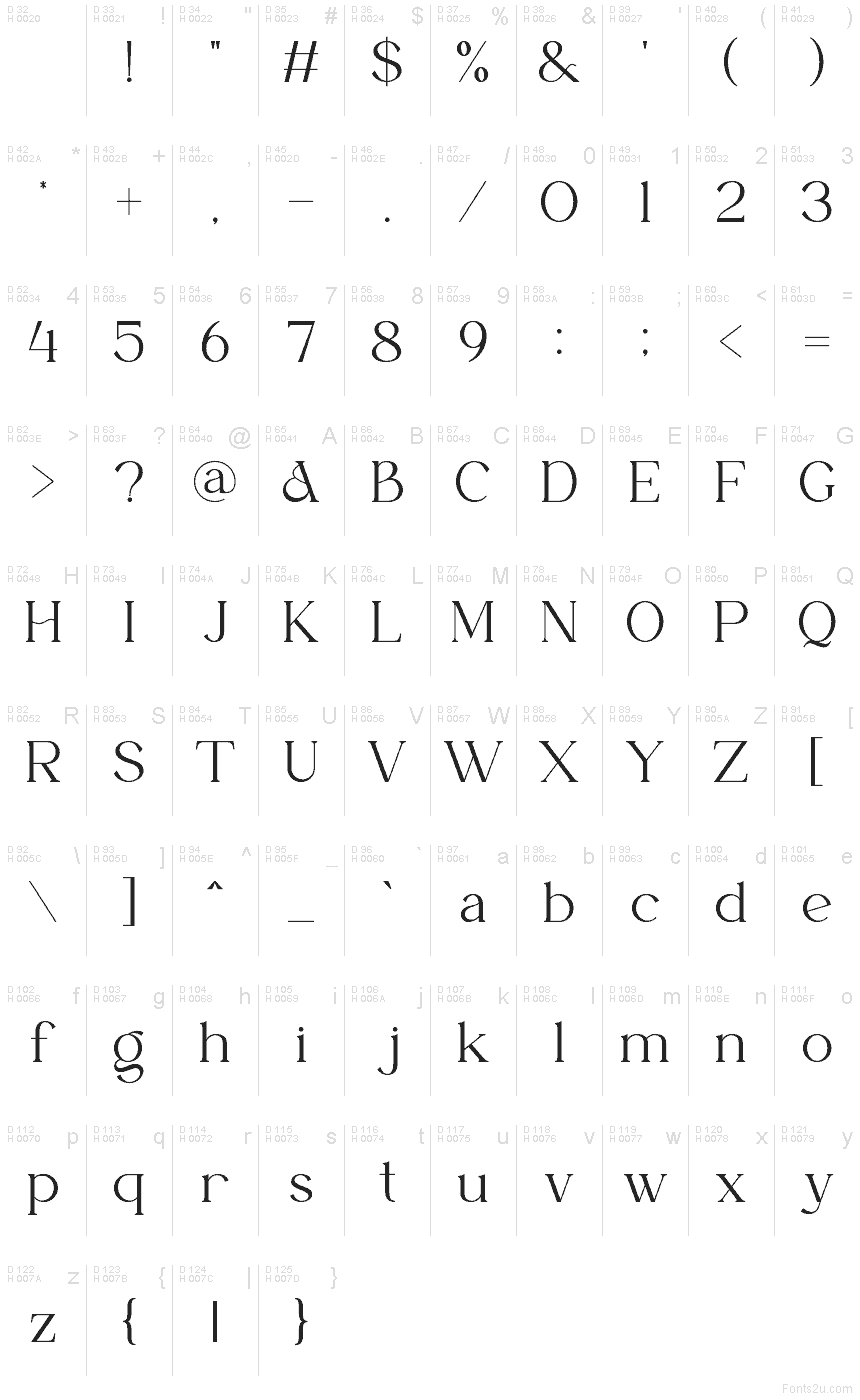
Aulory Regular
Aulory font by Ermedia Studio is a free decorative serif font that leans into dramatic contrast and sculpted curves. Its signature move is the ribbon-like sweep that opens characters and the crisp, knife-edge serifs that snap them shut, giving headlines a couture, ink-on-paper feel. The rhythm is tight yet breathable, so lines look refined rather than fussy.
Using Aulory, you’ll get standout results for boutique logos, beauty packaging, editorial titles, wedding suites, wine labels, and social media quote cards. This free font shines at larger sizes where its high-contrast strokes and graceful modulation can really glow. For body copy, pair it with a clean sans to keep information clear; a touch of extra letterspacing at display sizes helps the forms sparkle.